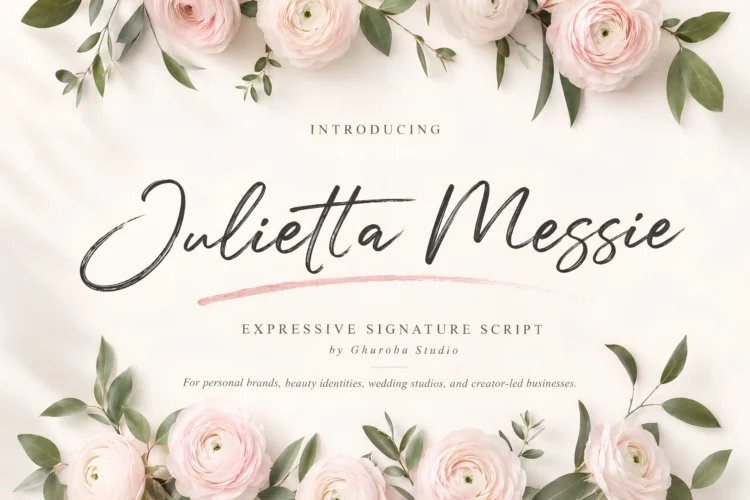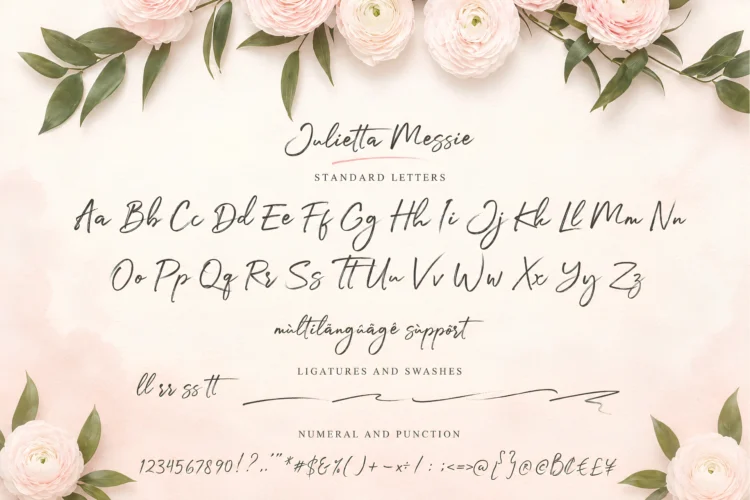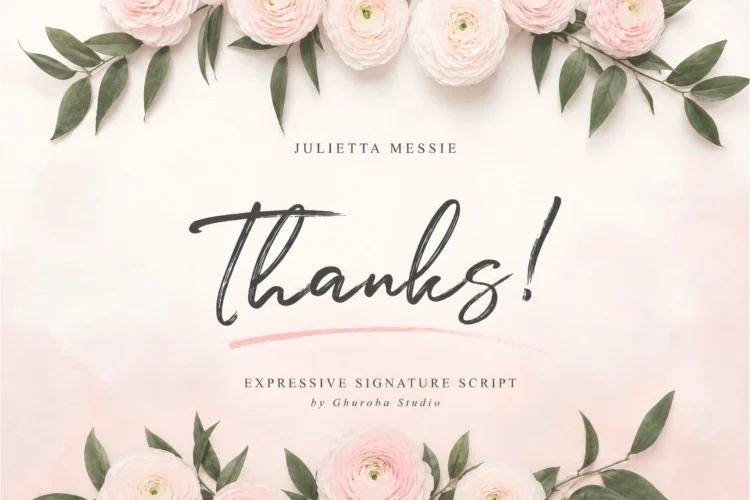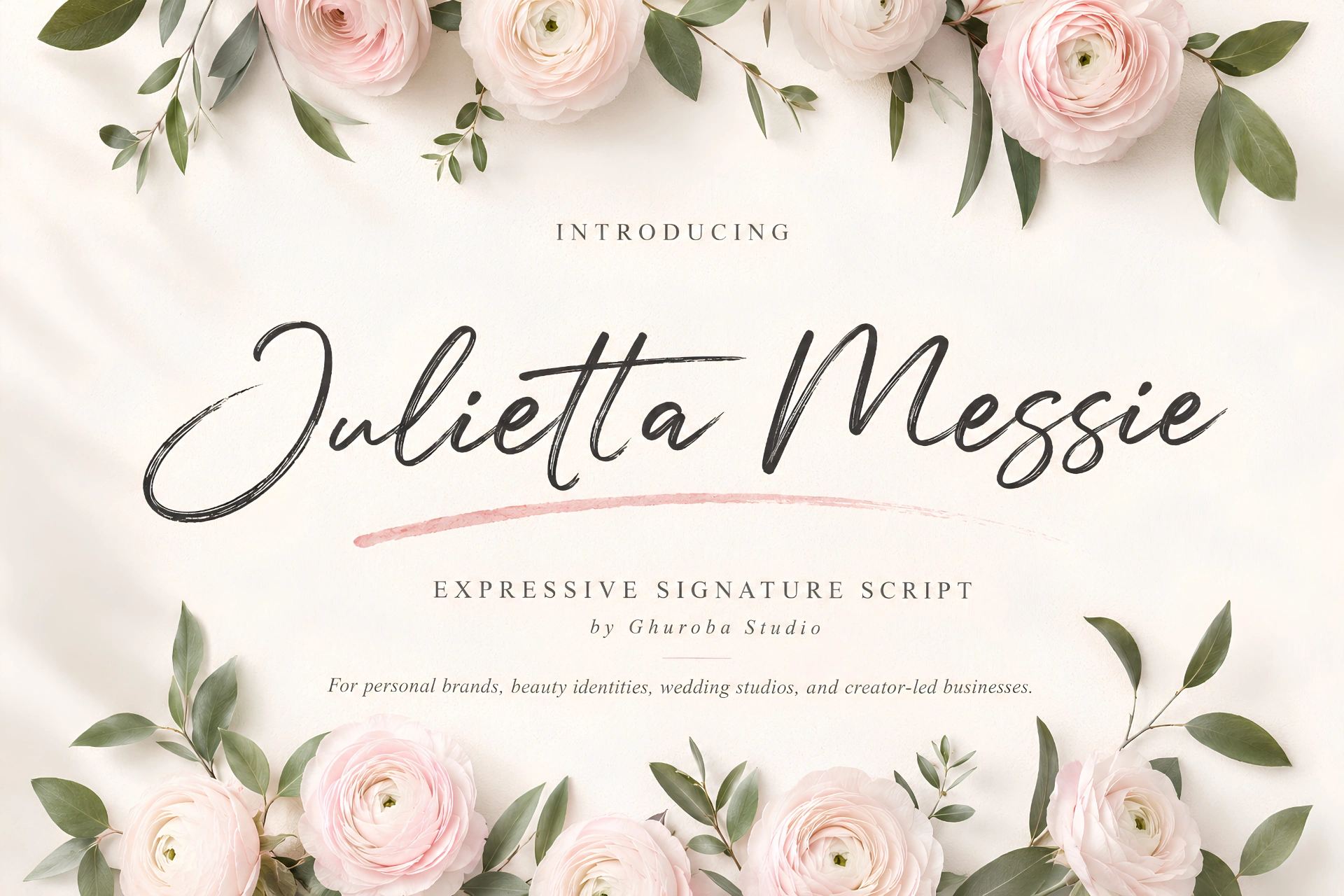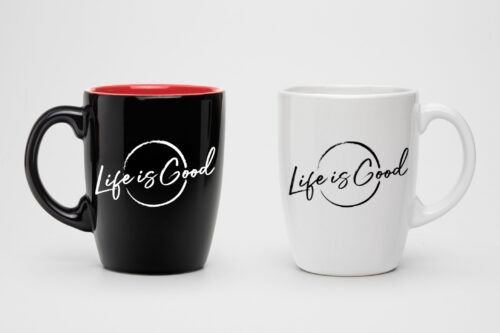
A Signature-Style Identity Font for Brands that Need A Personal, Expressive, Human Mark.
Julietta Messie is an expressive signature script for personal brands, beauty identities, wedding studios, and creator-led businesses.
Built with natural brush movement and a confident handwritten rhythm, Julietta Messie gives brands a personal mark that feels warm, recognizable, and commercially useful. Its signature-style flow works especially well for logos, beauty packaging, wedding stationery, boutique labels, social media identities, and brand visuals that need a more human voice.
This is not only a script font for decoration. Julietta Messie is designed to help create a finished brand atmosphere: a beauty studio with a personal founder signature, a wedding brand with intimate stationery, a boutique product line with a handwritten label, or a creator-led business that needs a memorable visual voice.
Its expressive strokes, ligature flow, and swash details make it suitable for identities that need movement without feeling too casual, and personality without losing commercial polish.
Perfect For:
- Personal brand logos
- Beauty studio identities
- Wedding invitations and stationery
- Boutique packaging
- Fragrance and skincare labels
- Fashion and lifestyle branding
- Photography logos
- Creator-led businesses
- Social media graphics
- Signature-style product labels
- Thank you cards and packaging inserts
- Editorial campaign headlines
Features:
- Uppercase and lowercase characters
- Numerals and punctuation
- Ligatures & Swashes
- OpenType features
Julietta Messie is especially strong when used as a primary logo mark, packaging accent, campaign headline, or signature detail inside a larger brand system.